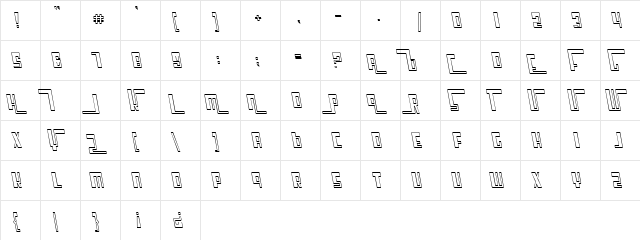
Cosmic Age Outline Italic
Design Context for Cosmic Age Outline Typeface
Cosmic Age Outline is built around its visual character rather than neutral utility — its distinctive forms are designed to make an impression at display sizes. The dynamic lean of this cut emphasises speed and emphasis in any layout.
Font Pairing: Pair with a clean neutral sans-serif for body copy to let Cosmic Age Outline's character lead without overwhelming the composition.
Pro Tip: Treat Cosmic Age Outline as the centrepiece of your typographic hierarchy. One strong heading set in a decorative face can carry an entire layout.